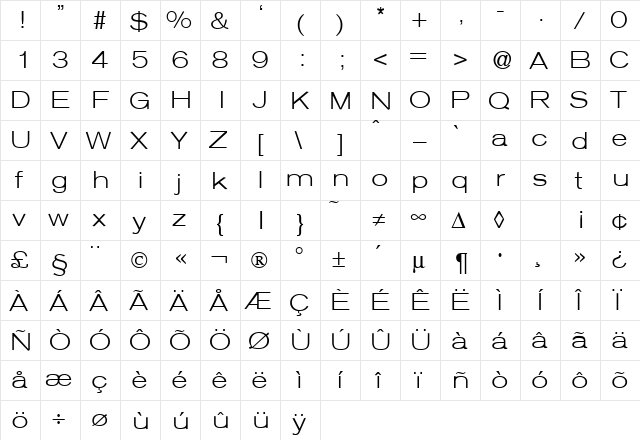
AkzentExtendedLight Regular
Design Context for AkzentExtendedLight Typeface
AkzentExtendedLight is a composed and adaptable typeface that performs quietly and consistently across a wide range of design contexts. Its slender proportions lend an understated elegance to any composition.